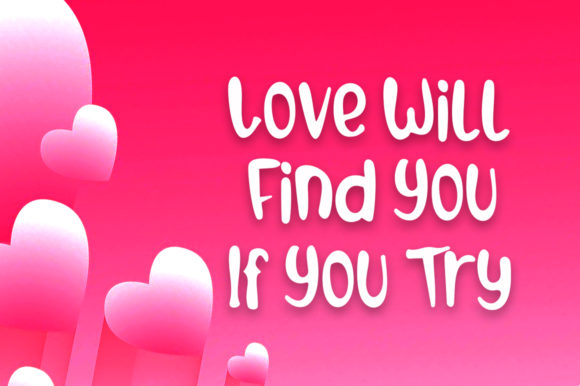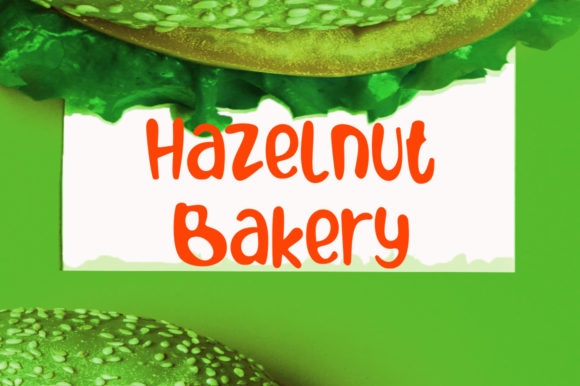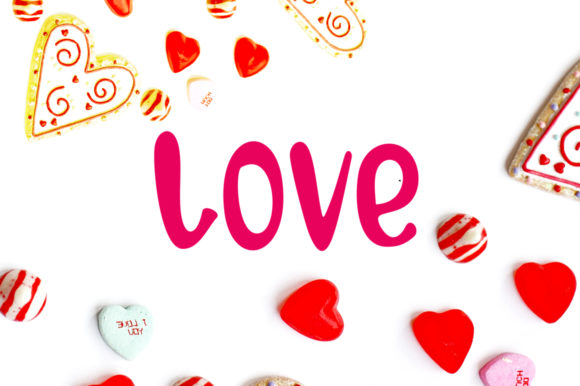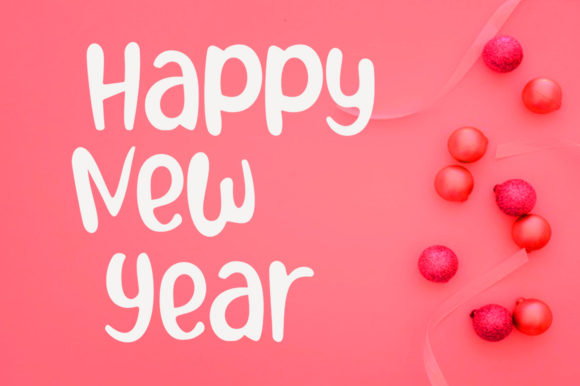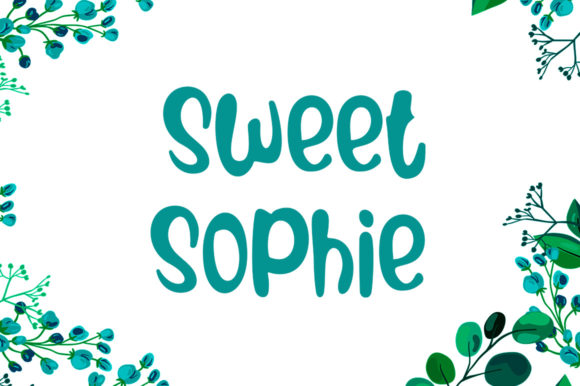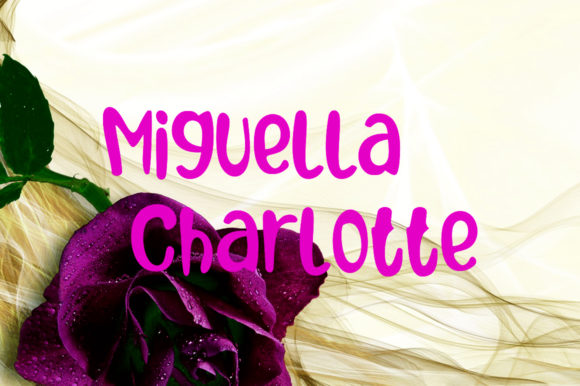
Introducing Andy Bear Font: The Perfect Choice for Whimsical Designs
Are you a designer or crafter looking for a font that can add a touch of joy and playfulness to your projects? Look no further than Andy Bear Font! This simple yet delightful display font is perfect for creating children-themed designs that are sure to capture the imagination of kids and adults alike.
The Characteristics of Andy Bear Font
Andy Bear Font is a sans-serif font that boasts a clean and straightforward design. Its simplicity makes it highly versatile, allowing it to be used in a wide range of applications, from children’s books and educational materials to craft projects and digital media. The font’s joyful and carefree vibe is infectious, making it an excellent choice for designers who want to create engaging and interactive designs.
Why Andy Bear Font is Perfect for Children-Themed Designs
When it comes to designing for children, it’s essential to choose a font that is both fun and easy to read. Andy Bear Font ticks both boxes, with its playful and approachable design that kids will love. The font’s simplicity also makes it easy to read, even for early readers who are just learning to recognize letters and words.
One of the key benefits of using Andy Bear Font in children-themed designs is its ability to pair well with bright colors. The font’s clean and simple design provides the perfect backdrop for bold and vibrant colors, creating a visually appealing combination that kids will find irresistible. Whether you’re designing a children’s book, a craft project, or a digital app, Andy Bear Font is the perfect choice.
Using Andy Bear Font in Your Designs
Tips for Getting the Most Out of Andy Bear Font
To get the most out of Andy Bear Font, here are a few tips to keep in mind:
- Pair Andy Bear Font with bright colors to create a visually appealing combination
- Use Andy Bear Font in combination with other playful fonts to create a fun and dynamic design
- Experiment with different font sizes and styles to add visual interest to your design
- Consider using Andy Bear Font in conjunction with illustrations or graphics to create a cohesive design
Andy Bear Font is a simple yet joyful display font that is perfect for children-themed designs. Its clean and straightforward design makes it highly versatile, while its playful and approachable vibe is sure to capture the imagination of kids and adults alike. Whether you’re a designer or crafter, Andy Bear Font is an excellent choice for anyone looking to create engaging and interactive designs. So why not give Andy Bear Font a try today and see the difference it can make in your designs?
With its ease of use, versatility, and playful design, Andy Bear Font is sure to become a favorite among designers and crafters. So go ahead, get creative, and see what amazing designs you can create with Andy Bear Font!